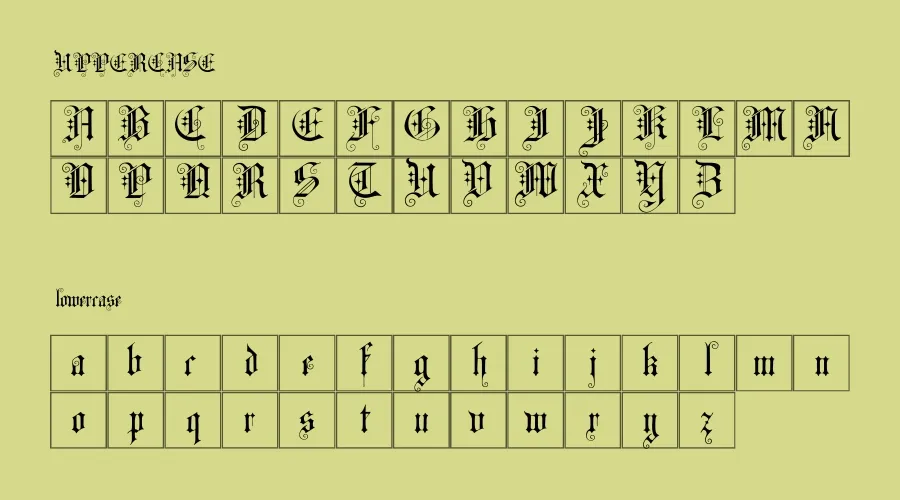
About Baroque Text Jf Font
Jason Anthony Walcott created Baroque Text Jf Font in the year 2003 and belongs to the fancy font family. It is a blackletter font inspired by the textured use in the famous book called “how to” book on calligraphy. There is no doubt that this typeface has flexible characters that will give you flawless results. Many alternatives can be paired with this font to enhance the beauty of the project.
Many people use this cozy font for their projects because it is great for creating unique designs. Witch font can be paired with this font because this typeface contains the best pairing nature and can make a good combination with other black lettering fonts.
This font is created with a single style that is comprised of all sets of characters, lowercase, uppercase, numbers, glyphs, and symbols which increases the demand for this typeface. This single font family also supports a large set of languages.
It also includes standard capitalization, variations, fashionable substitutes, and numbers. The font type can be used to create various CSS designs. An online font generator tool can also be used to create this type of design aesthetic.
This typeface can be used to create cards, logos, and invoices with a decorative touch. This tool is useful for magazine covers, banners, and social media posts.
Any occasion will be enhanced by this beautiful, typeface. If you want to add a little romance to your wedding invitations or simply want to make a loved one’s birthday card extra special, then this typeface is for you. You can easily compare this font with the xiphos font.
Your designs will stand out and be unique with this style. The letters of this typeface demonstrate its versatility. With full concentration and experience, each letter has been created. Therefore, its letters did not comprise any errors.
Name | Baroque Text Jf Font |
Designer | Jason Anthony Walcott |
Style | Fancy |
What kind of Baroque Text Jf Font is it?
This typeface has a place in the fancy text style family. It comprises classic styles that make it ideal for different designs.
Where can I use Baroque Text Jf Typeface?
Due to its sharp and clean highlights, this typeface is utilized for numerous plans like designing magazines, banners, advertisements, and so on.
Who is the producer of Baroque Text Jf Typeface?
This classic text style was created by Jason Anthony Walcott.